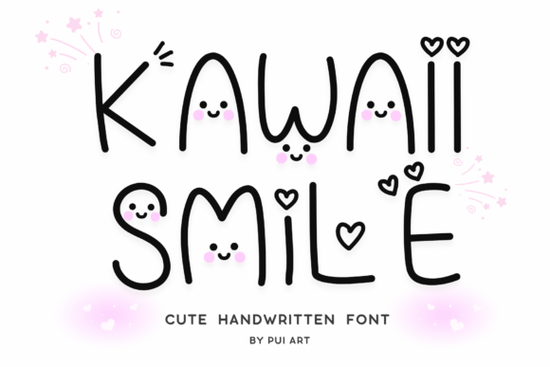
If you've been searching for a typeface that feels genuinely fun and lighthearted, Kawaii Smile Font is worth a close look. It's a hand-drawn display font packed with tiny smiley faces, doodle accents, and a cheerful personality that works beautifully for crafts, branding, and creative projects. Whether you're designing stickers, classroom printables, or social media posts, this font brings a warm, approachable feel that's hard to fake with standard typefaces.
What makes Kawaii Smile Font different from other playful fonts?
A lot of decorative fonts try to look cute but end up feeling generic. What sets this one apart is the hand-drawn quality of every letter. The smiley details aren't just tacked on they're woven into the letterforms in a way that feels natural and intentional. The overall look is whimsical without being messy, which is a balance that's tricky to get right.
It also stays readable at larger sizes, which matters more than people realize. You want a playful font that still communicates clearly, especially on things like greeting cards, invitations, and product packaging. This one handles that well.
What projects actually work well with this font?
Based on how the font is designed, here are the types of projects where it really shines:
- Kids' crafts and classroom materials Worksheets, bulletin board headers, name tags, and reward certificates all benefit from a friendly, approachable typeface.
- Stickers and planner accessories The doodle-style details fit perfectly with the sticker market, especially for planners aimed at a younger or kawaii-loving audience.
- Invitations and greeting cards Birthday party invites, baby shower cards, and holiday greetings all get a boost from the cheerful handwritten look.
- Sublimation designs Mugs, t-shirts, tote bags, and phone cases are popular sublimation products where this style stands out.
- Social media graphics Instagram posts, story highlights, and YouTube thumbnails that need a playful, eye-catching typeface.
- Small business branding Bakeries, kids' boutiques, toy shops, and daycare centers can use it for logos, tags, and packaging.
It's also a solid choice for DIY projects like custom party decorations, scrapbooking, and handmade gift tags. If you sell on Etsy or similar marketplaces, fonts like this can help your products look polished while still feeling personal.
Is it a good fit for print-on-demand sellers?
Absolutely. Print-on-demand sellers need fonts that look great at various sizes and on different products. Kawaii Smile Font works well for t-shirt designs, mug wraps, and sticker sheets three of the most popular POD product categories. The hand-drawn style also gives designs an authentic, handmade feel that customers tend to prefer over overly digital-looking graphics.
How does it pair with other decorative fonts?
Pairing decorative fonts can be tricky, but the key is contrast. Since this font is bold and playful, it works best alongside something simpler for body text or secondary headings. That said, if you're going for an all-decorative look, you could combine it with a complementary style like a flower-themed decorative font for garden or spring-themed projects, or an elegant rose-inspired font for designs that need a romantic or vintage twist.